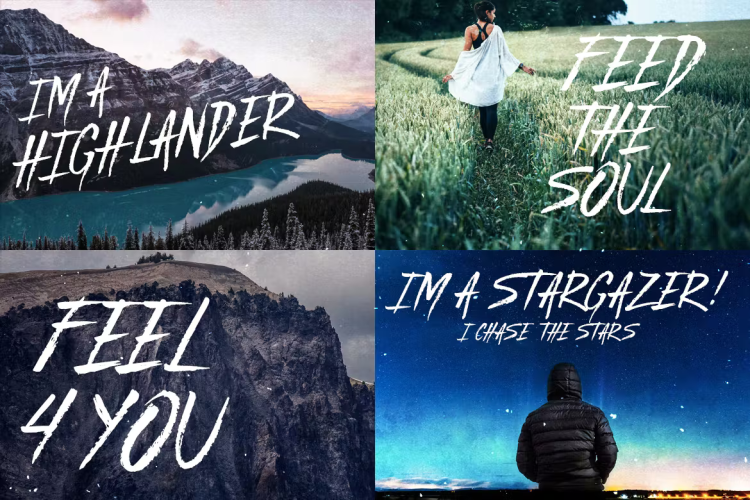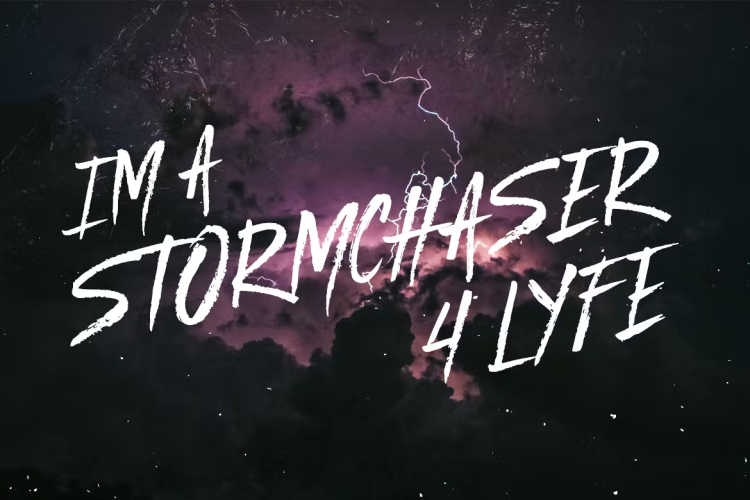
Los Santos Typeface Font
Introducing “Los Santos”, the Handsketched Typeface that delivers oodles of character with its bold lines.
This Font would be perfect for statement and headline pieces of typography, perhaps for Club Flyers, Advertising Campaigns, or Hero Images on a website, its extremely versatile.
Where Los Santos Typeface Font works best
Seasonal campaigns
Los Santos Typeface Font gives a holiday or themed promotion its own look without redrawing anything; use it for the headline only.
Party and family invitations
Decorative letters set the mood before the text is read. Pair Los Santos Typeface Font with a plain sans for the practical details.
Game and video titles
Themed lettering sells the world of a game or a channel in one frame.
What kind of work does Los Santos Typeface Font suit?